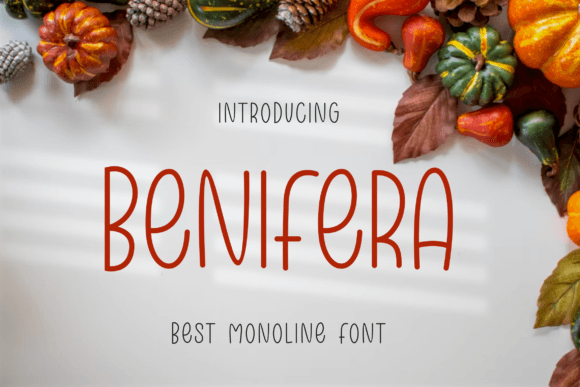
Discovering the Perfect Font for Your Branding Project
Remember that moment when a font just clicked, and you knew you had found the perfect match for your brand? It’s a feeling that’s hard to describe, but it’s like a rush of creativity and excitement all at once. For designers, this moment is often the result of hours of searching and experimenting with different fonts. But what if we told you that we’ve found a font that’s sure to spark that feeling and take your branding project to the next level?
Meet the Benifera Font, a bold and authentic sans serif font designed to make a statement in any context. Whether you’re creating a logo, designing a t-shirt, or exporting your brand’s message, Benifera Font is the perfect choice. Its versatility and timeless appeal make it a valuable addition to any designer’s toolkit.
Benifera Font Key Features
- Font Family: Benifera Font is a sans-serif typeface with a modern and elegant design.
- Character Set: The font includes a wide range of characters, including Latin, Greek, and Cyrillic alphabets, as well as punctuation marks and symbols.
- Unique Characteristics: The font features a unique blend of geometric and organic shapes, resulting in a distinctive and recognizable design.
Benifera Font Review
Overall, I think Benifera Font is a beautiful, elegant script font that could work well in various design projects. ✨
Here are some things that I think the font does well:
- Legibility: Benifera Font is very easy to read, even at small font sizes. The letterforms are clear and well-defined.
- Expressiveness: The font’s script nature gives it a lot of character and expressiveness, making it perfect for headings and titles.
- Customization options: Benifera Font comes with a range of OpenType features, allowing designers to customize the font’s behavior and appearance.
However, I do have some concerns about the font’s limitations:
- Lack of robustness: The font may not be as robust as some other script fonts, which could make it difficult to use in certain situations.
- Not ideal for body text: Due to its script nature, Benifera Font may not be the best choice for large blocks of body text.
- May not work well in all languages: The font’s design may not be optimized for languages that use non-Latin scripts.
Overall, I think Benifera Font is a great choice for designers who need a beautiful, elegant script font for headings and titles. However, it may not be the best choice for body text or for designs that require a more robust font.
Tips for Getting the Most Out of Benifera Font
To get the most out of Benifera Font, try the following:
– Use it for headings and titles to add a touch of elegance.
– Combine it with other fonts to create a unique and visually appealing design.
– Experiment with different font sizes and styles to achieve the desired effect.
– Use it for branding and marketing materials to create a consistent and professional look.
Alternatives to Benifera Font
What is the recommended font size for optimal readability with Benifera Font?
The recommended font size for optimal readability with Benifera Font is between 12pt and 18pt. However, this may vary depending on the specific use case, such as digital displays or print materials. It’s essential to test different font sizes to find the most legible and visually appealing option for your project.